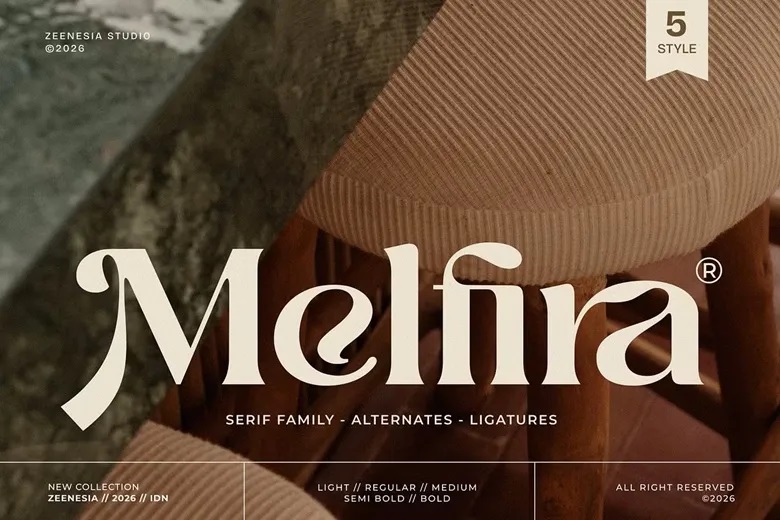
Melfira Font
Melfira is a serif typeface that combines modern style with classic elegance. Its graceful curves, high-contrast strokes, and unique letterforms add a luxurious, stylish feel to your designs. The Melfira family includes five styles, from Light to Bold, giving you options for both subtle and bold typography.
Each letter is designed to balance readability with artistic flair. Melfira works well for branding, logos, editorials, fashion, invitations, and premium packaging. It gives your design a modern, elegant look.
Melfira Serif Font